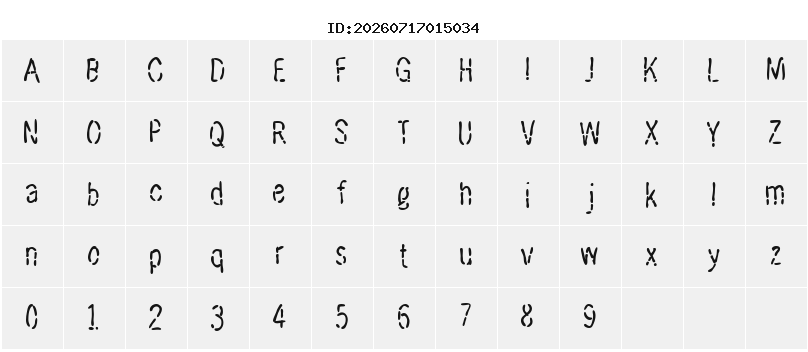
• Font Name: AL Frazzled
• Full Font Name: AL Frazzled
About AL Frazzled.ttf
AL Frazzled.ttf is a modern, elegant sans-serif font designed for ultimate readability and visual harmony. Perfect for branding, headlines, web design, and print materials.